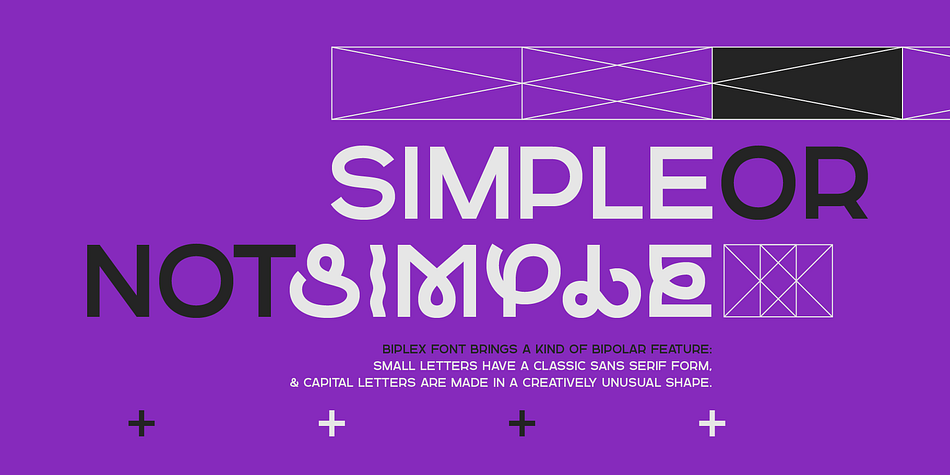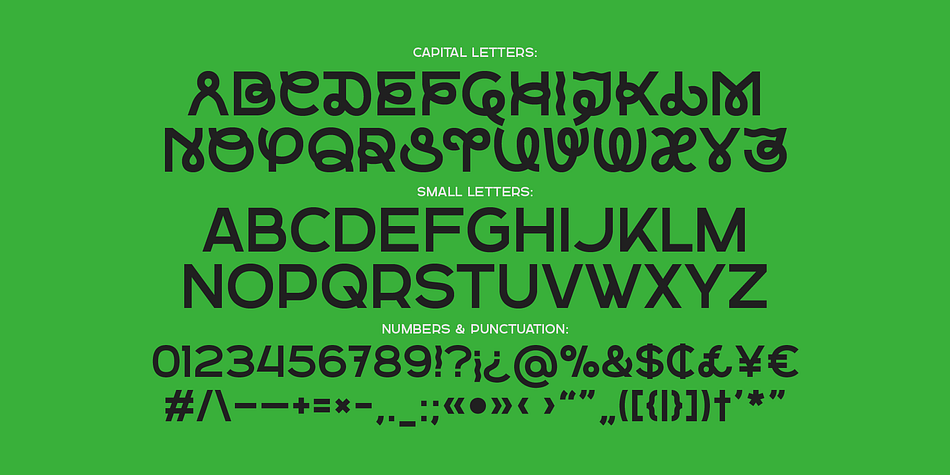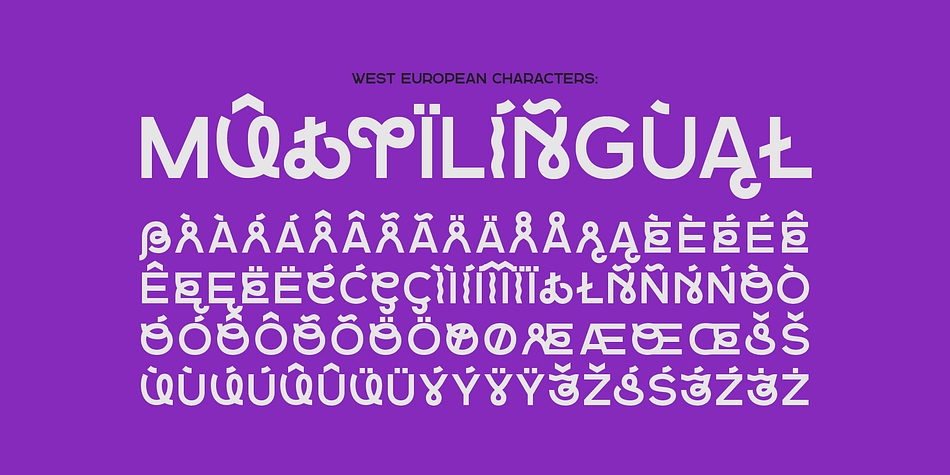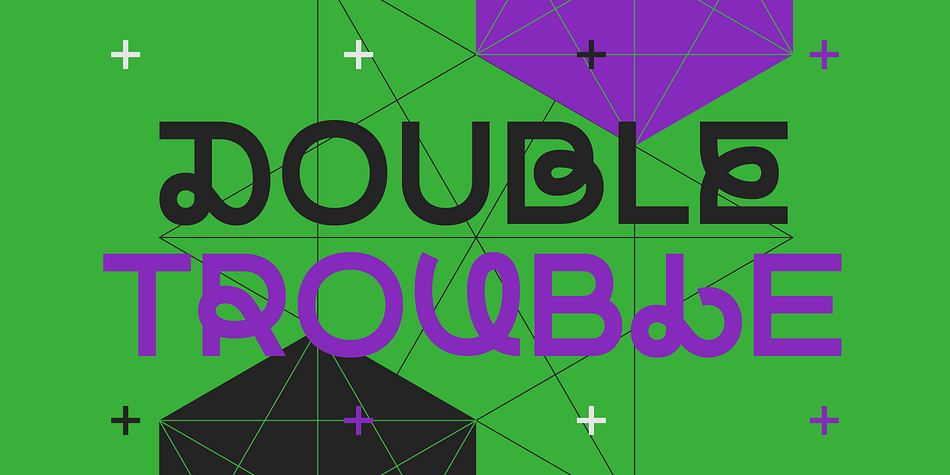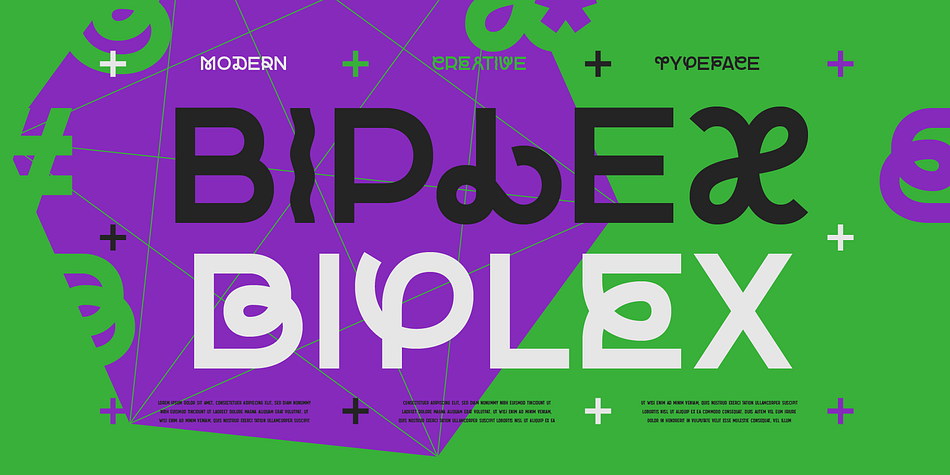
Biplex
Designed by Gleb Guralnyk, Biplex is a display sans font family published by Gleb Guralnyk.
Hello! Presenting a modern creative font — Biplex. This font brings a kind of bipolar feature: small letters have a classic sans serif form & capital letters are made in a creatively unusual shape. Biplex font has multilingual support (check out a screenshot with available letters and signs).